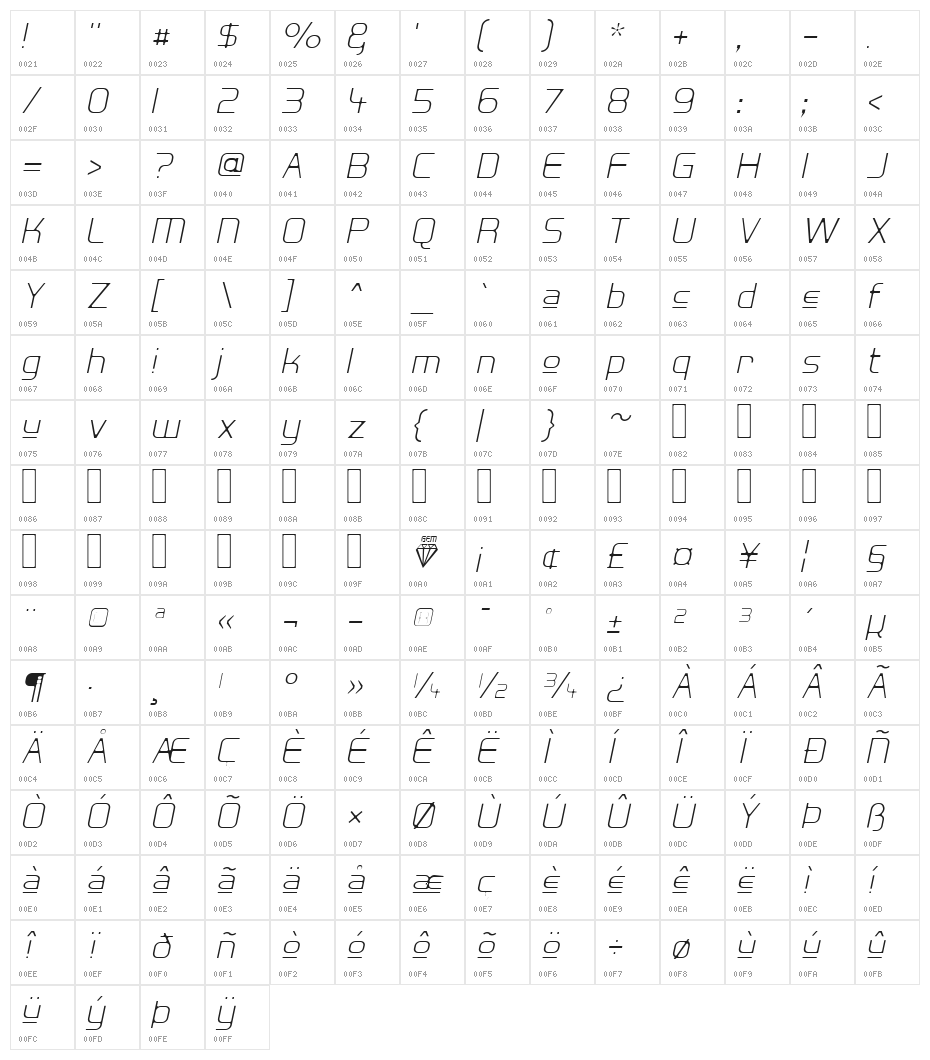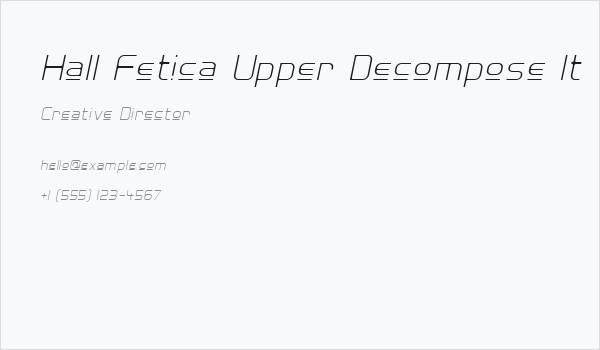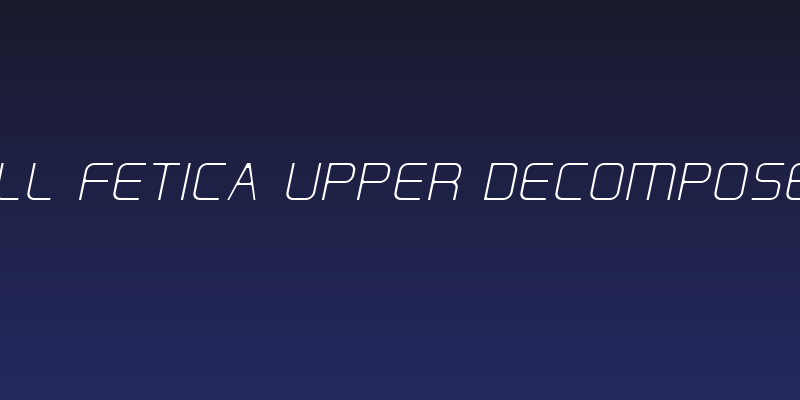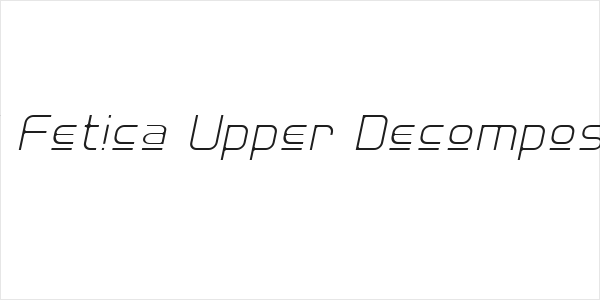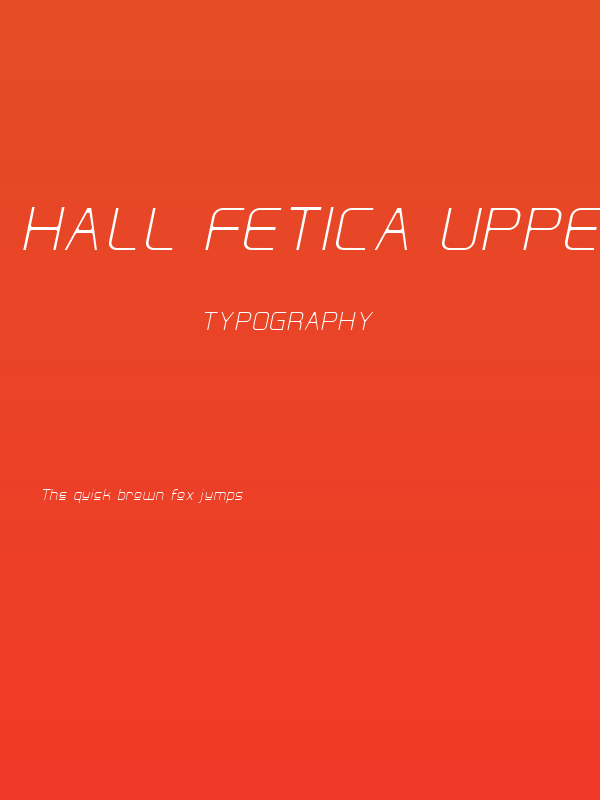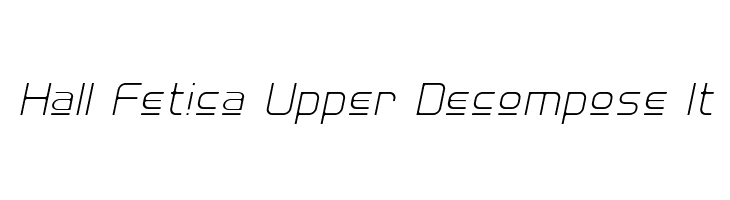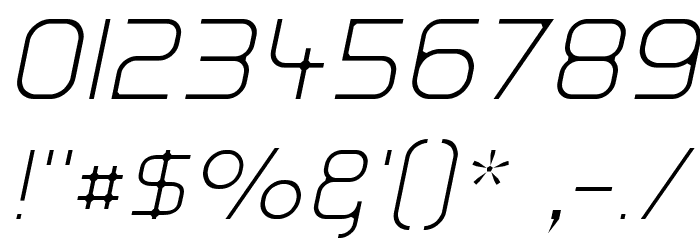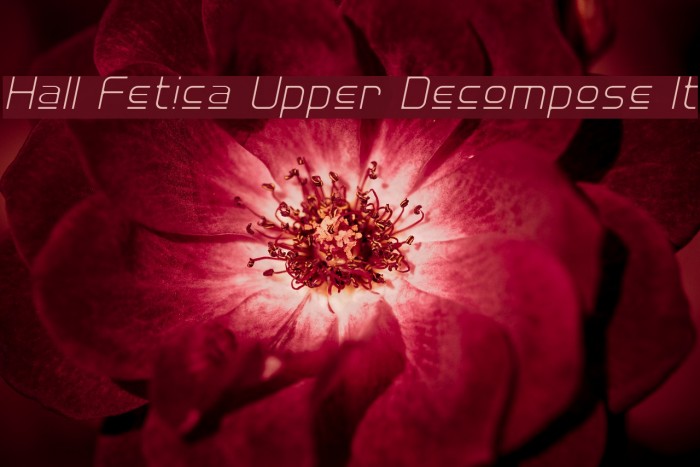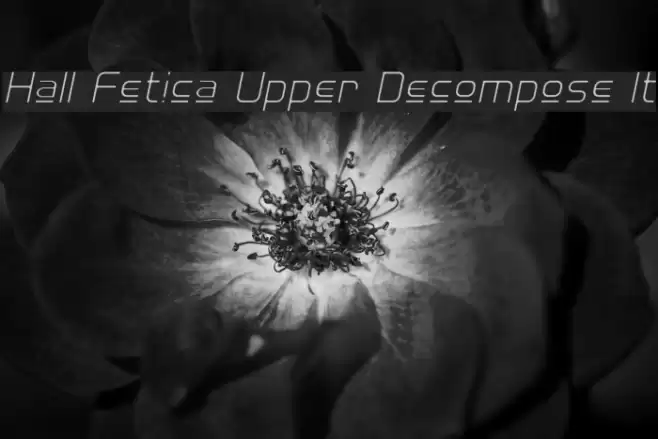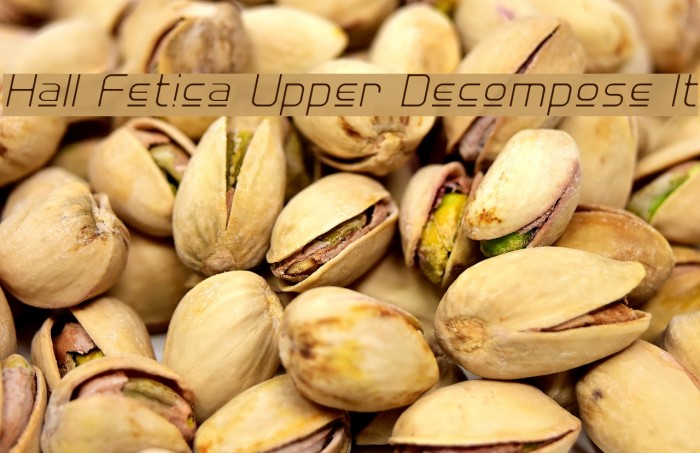
Hall Fetica Upper Decompose It Font
Hall Fetica Upper Decompose It Description
This font exhibits a modern, sleek design with a futuristic aesthetic. The characters are slightly condensed with a geometric structure, featuring clean lines and a uniform stroke width. The uppercase letters maintain a consistent height, while the lowercase letters have a unique style with some characters incorporating horizontal lines, adding a distinctive touch. The numerals are designed to match the overall style, ensuring readability and consistency. Special characters are included, maintaining the same geometric and minimalistic approach.
| Width | Condensed |
| Use Case | Headlines, Logos, Digital interfaces |
| Proposed Projects | Ideal for tech branding, modern advertising, digital interfaces, and futuristic-themed projects. |